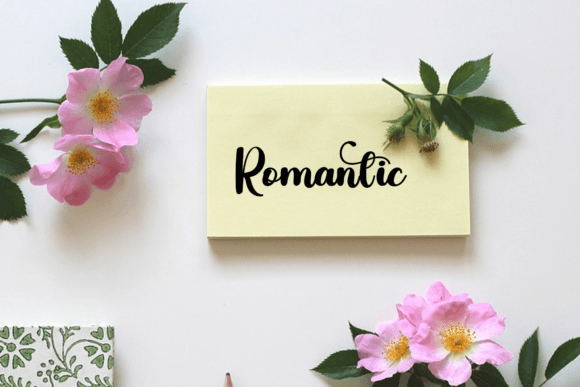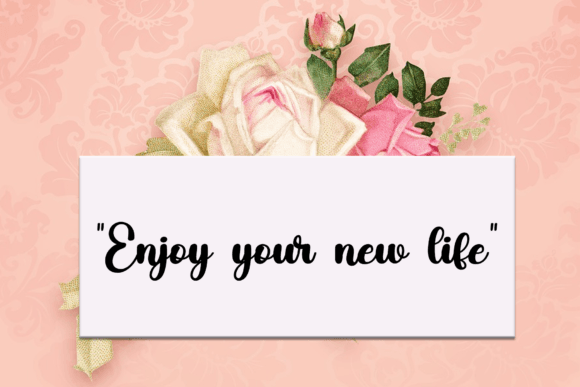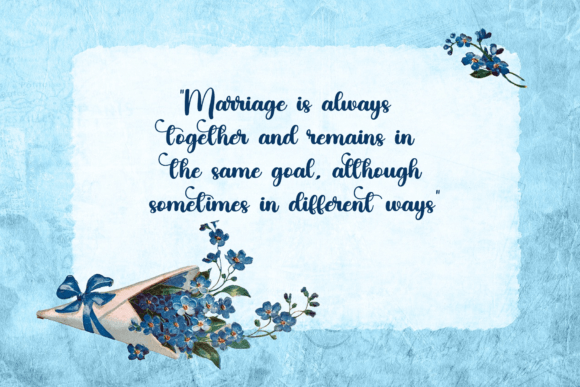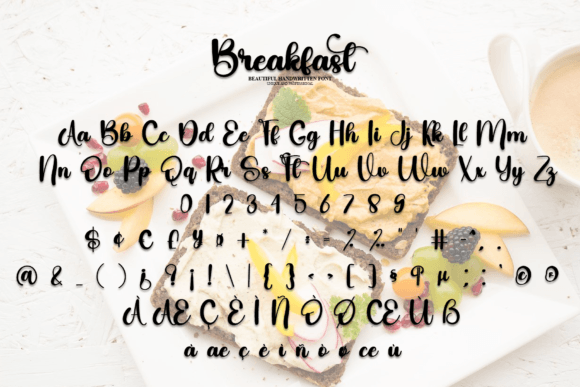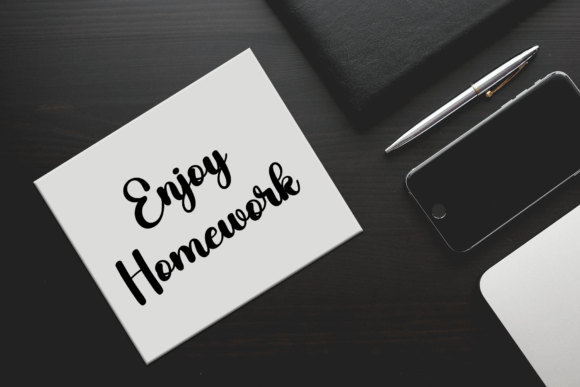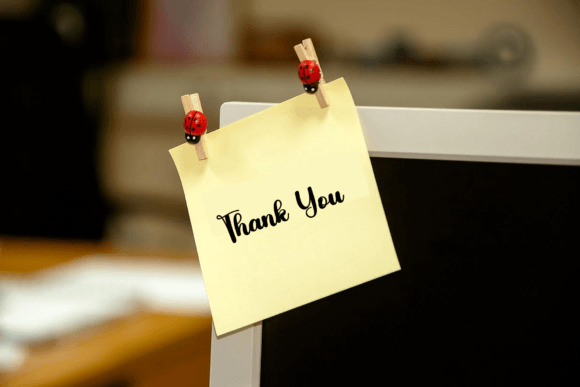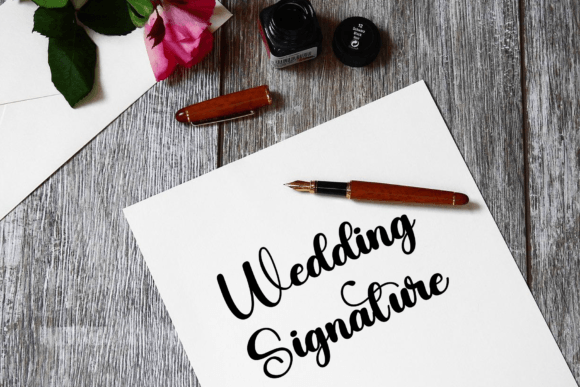
Breakfast Font
About Breakfast Font
“Breakfast” is an elegant and feminine typeface that exudes sophistication, making it a perfect choice for a variety of headlines and design projects. Its versatility lends itself well to applications such as wedding stationery, invitations, florists’ branding, packaging, and social media posts.
The elegance of “Breakfast” is evident in its refined and carefully crafted design. The typeface radiates sophistication and femininity, adding a touch of grace and charm to projects. Whether utilized in wedding invitations, stationery, or social media posts, “Breakfast” imparts a timeless and elegant aesthetic.
The font’s adaptability shines through in its ability to seamlessly fit into different design contexts. In the realm of wedding stationery, “Breakfast” contributes to the creation of a romantic ambiance with its elegant and feminine style. For florists’ branding and packaging, it adds a layer of sophistication that complements the delicate beauty of flowers and botanical elements.
When applied to social media posts, especially those related to weddings or feminine themes, “Breakfast” stands out as an elegant and captivating choice. Its upscale and feminine vibe makes it a valuable asset for creating visually appealing and impactful content.
In summary, “Breakfast” is more than just a typeface; it’s an elegant and feminine design tool that enhances the visual appeal of your projects. Whether featured in wedding-related materials, florists’ branding, packaging, or social media posts, “Breakfast” brings a touch of timeless elegance, ensuring a captivating presence in every creative endeavor.